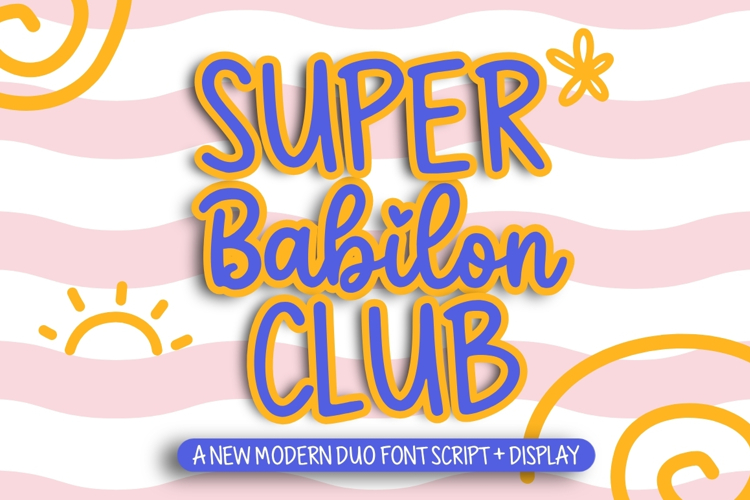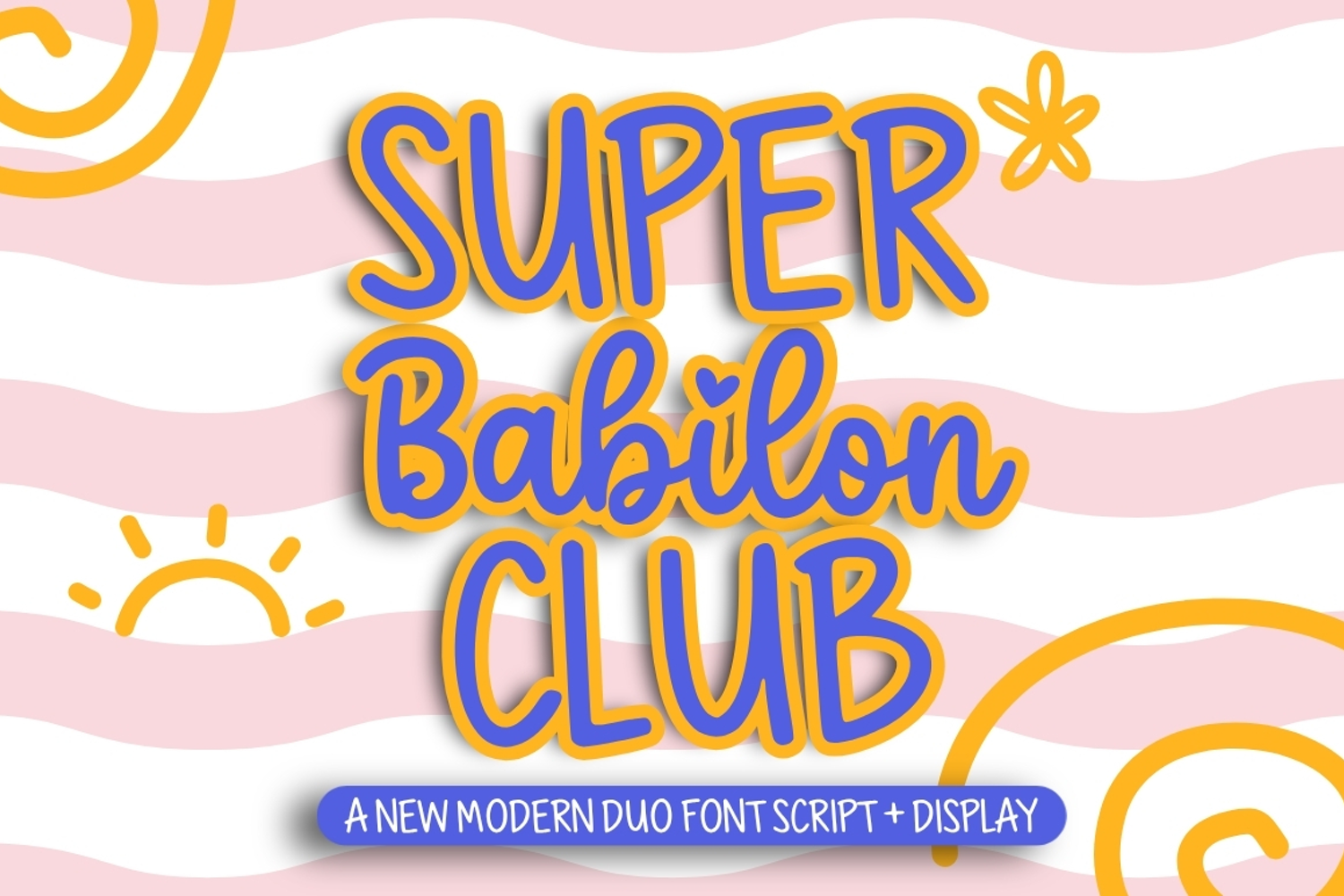
Super Babilon Club
Introducing Super Babilon Club, an expressive font duo that marries the whimsicality of hand-scribbled text with the audacity of display typeface. This coupling harmonizes fluid, vivacious lettering with powerful, attention-grabbing forms, creating a delightful juxtaposition of energy and strength. The script component conveys an intimate, laid-back quality, graced by seamless curves and organic letter pairings, while the display facet injects a dash of bravado and distinction, causing headlines and standout verbiage to pop. Ready to elevate branding, uniforms, posters, product packaging, invites, social media layouts, decals, product tags, inspirational sayings, and trendy lifestyle designs, Super Babilon Club presents a versatile palette to craft playful and refined creations.